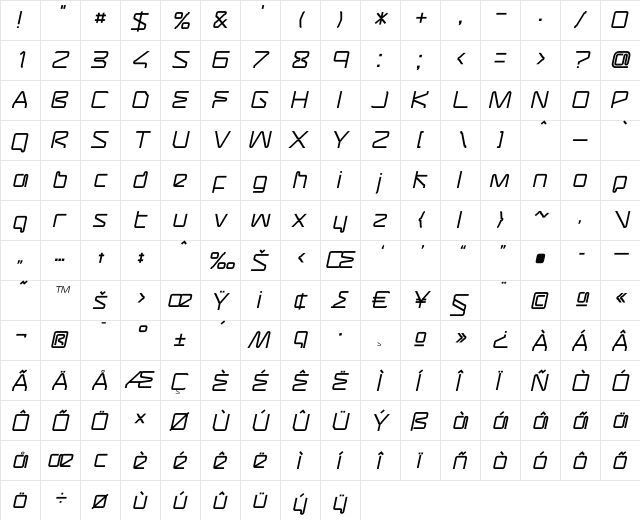
Assembler-Oblique Regular
Design Context for Assembler-Oblique Typeface
Assembler-Oblique offers clean, dependable letterforms without strong stylistic allegiance, making it a practical choice for designers who need flexibility. Its italic angle brings a sense of urgency and motion to the letterforms.
Pro Tip: Try Assembler-Oblique for annotation and caption copy alongside an upright companion — the contrast in angle creates a dynamic but ordered typographic system.